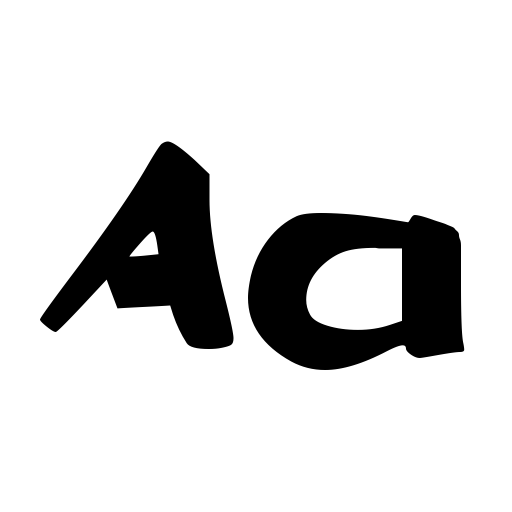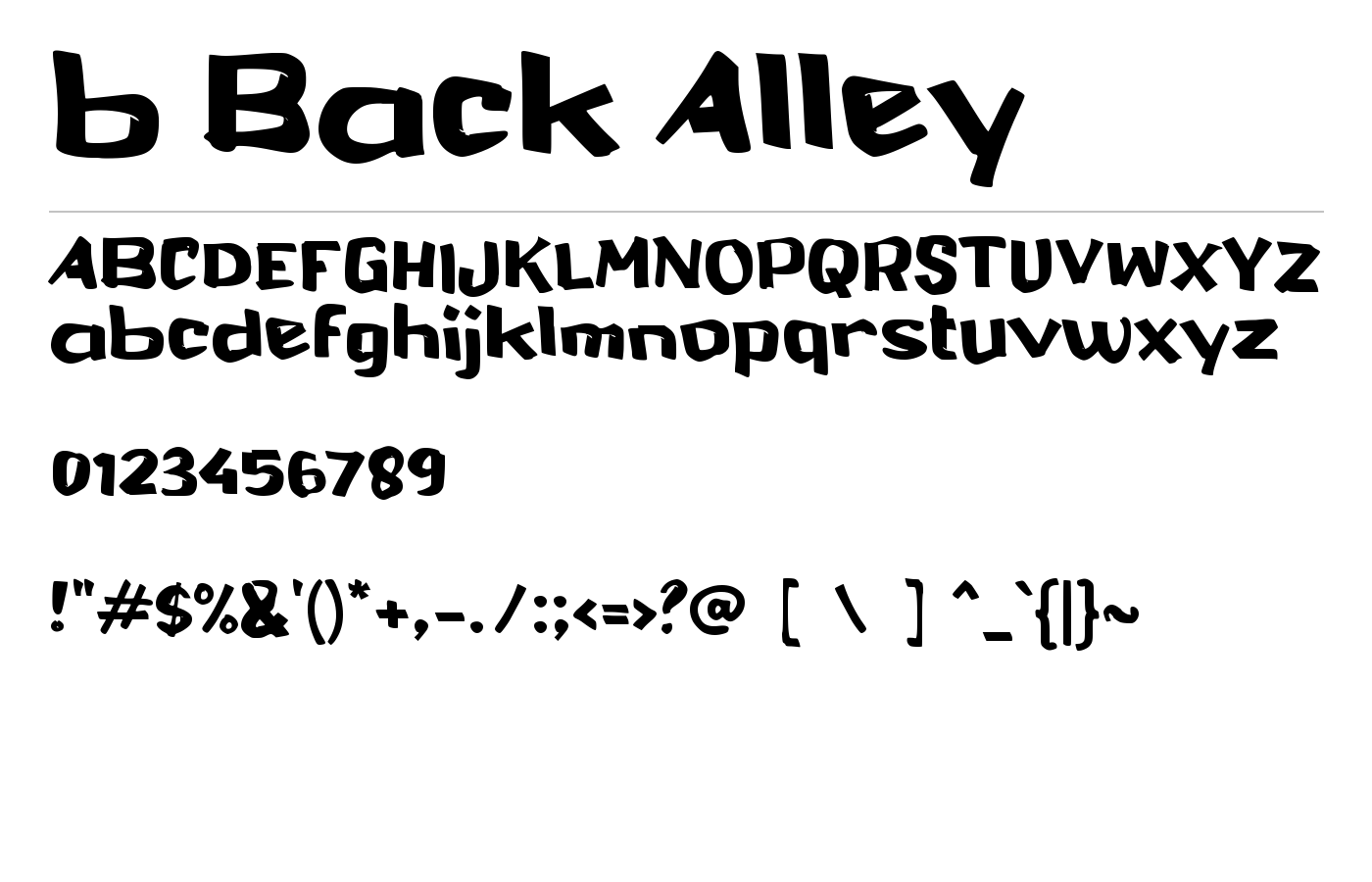
Back Alley is a bold, playful sans serif font with a hand-drawn feel, featuring irregular strokes and quirky letter shapes that give it a casual, urban vibe. Its wide, chunky forms and lively character make it perfect for fun, eye-catching headlines, posters, and creative branding where personality and a relaxed tone are desired. This font works best in informal designs that want to convey energy and approachability.
b Back Alley Font
About b Back Alley Font